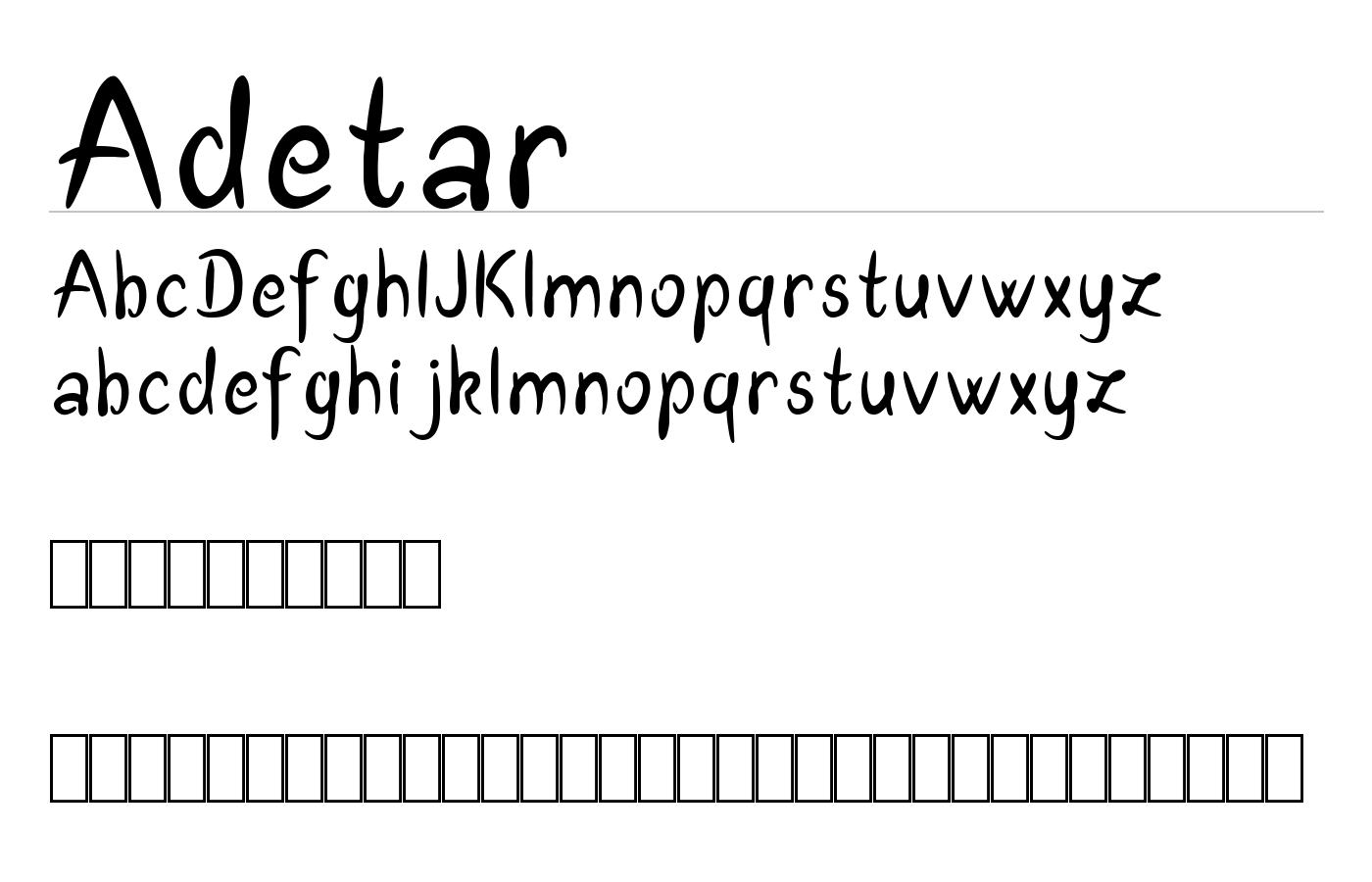
Adetar is a playful and casual handwritten sans serif font with a light weight and a slightly narrow width, featuring tall, rounded letterforms with consistent stroke thickness. Its charming, informal style brings a friendly and approachable feel, making it ideal for creative projects, children’s content, and casual branding where a warm, personal touch is desired. This font works well in headings and short texts where a unique, hand-drawn character can stand out.
Adetar Font
About Adetar Font